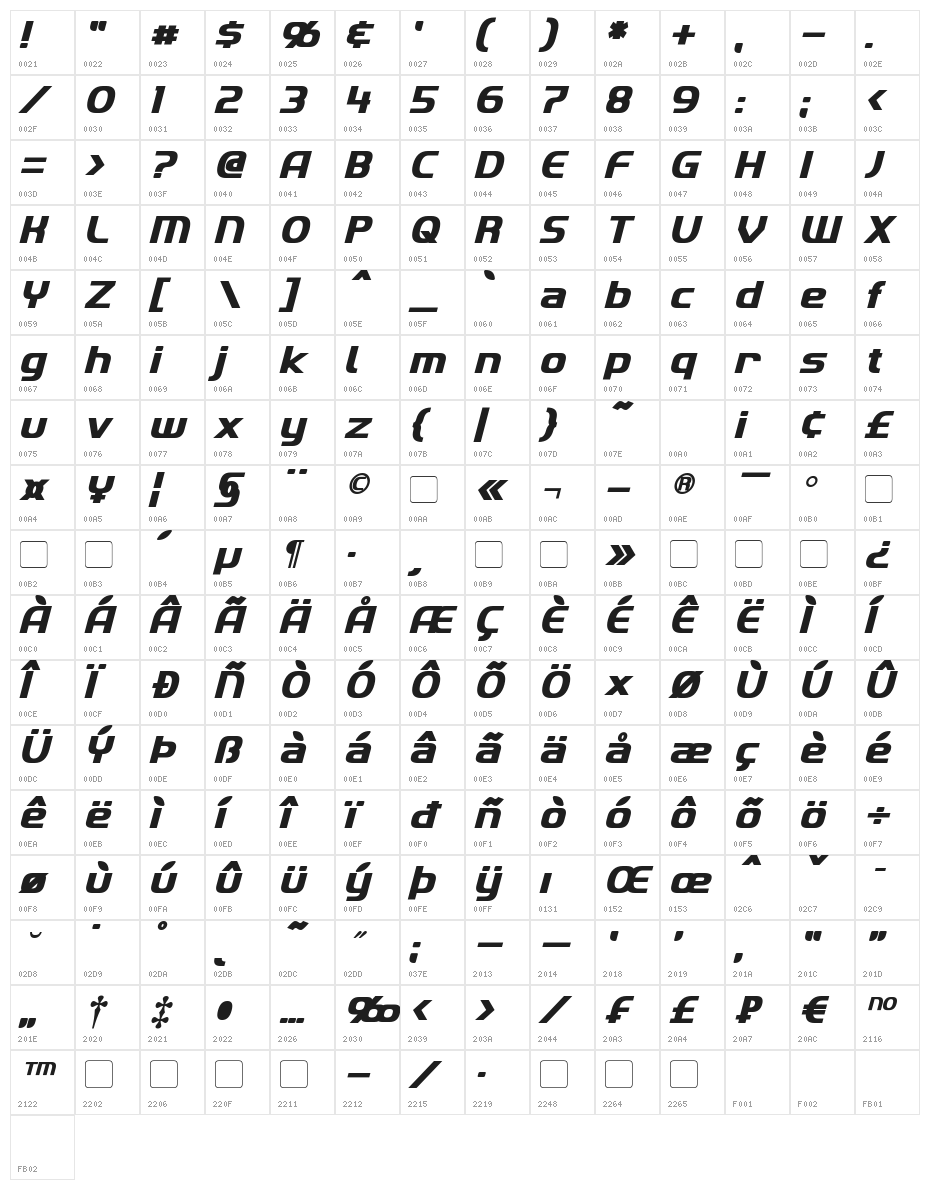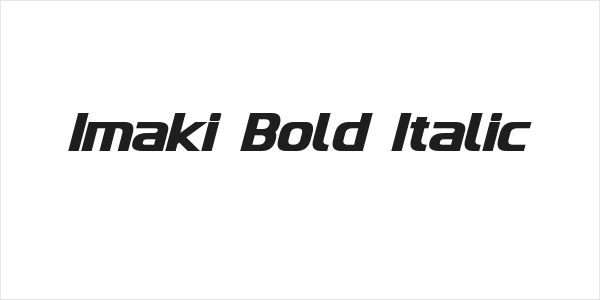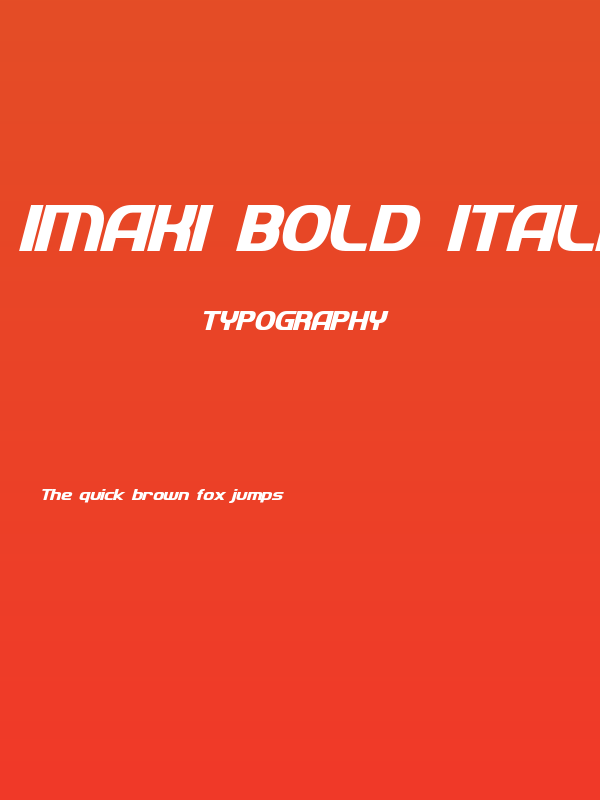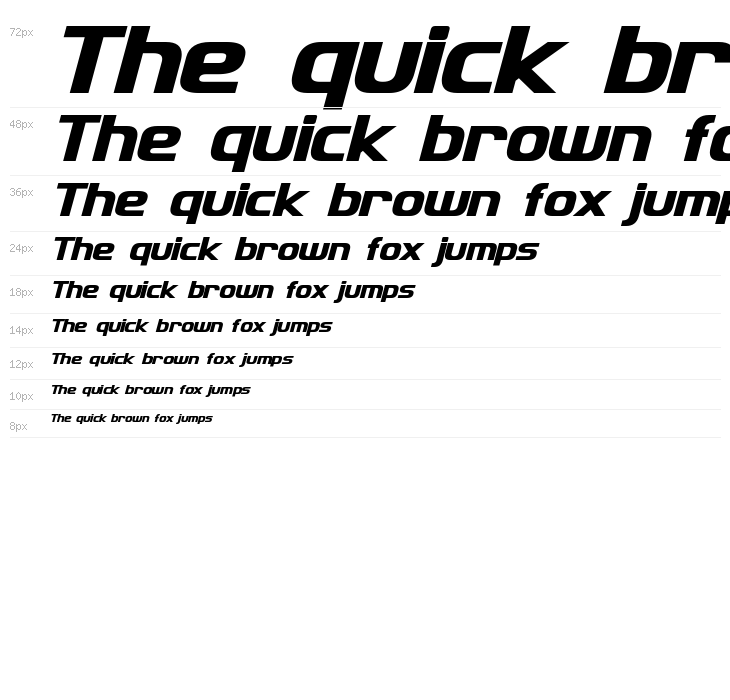
Imaki Bold Italic Font
Imaki Bold Italic Description
This font exhibits a bold and italicized style, characterized by its strong and dynamic presence. The letters are slightly slanted, giving a sense of motion and energy. The strokes are thick and consistent, providing a robust and impactful appearance. The design is modern and sleek, with a futuristic touch that makes it suitable for contemporary projects. The characters are well-defined, with smooth curves and sharp edges that enhance readability while maintaining a stylish look. The numbers and special characters follow the same bold and italicized theme, ensuring uniformity across all elements.
| Use Case | Headlines, Logos, Advertising |
| Proposed Projects | Ideal for branding, advertising, sports-related designs, and digital media projects. |